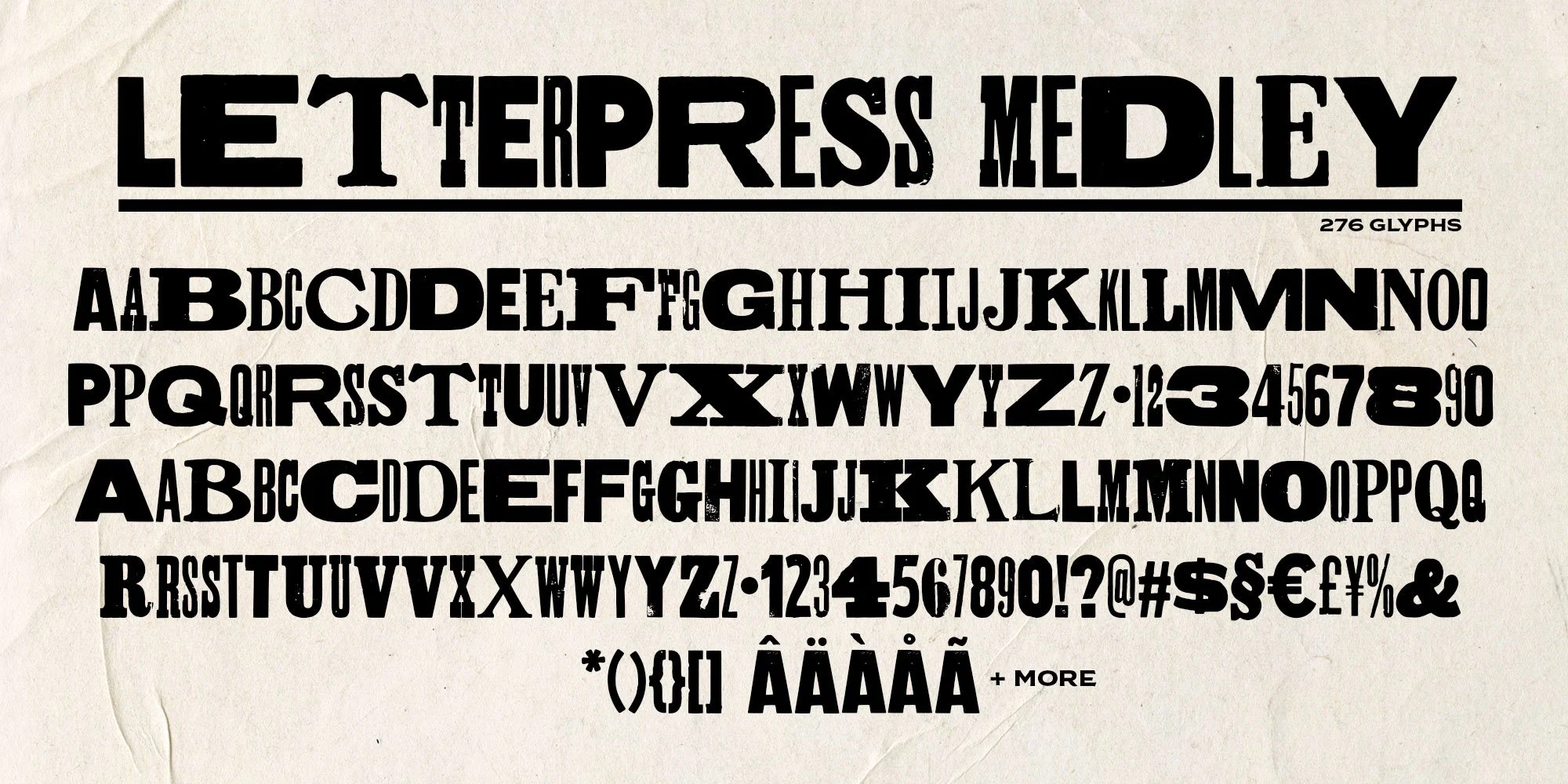
Letterpress Collection
Our Letterpress Font Collection features six fonts that bring the character and authenticity of traditional letterpress into your digital projects. Each font has an organic quality, capturing the subtle imperfections that make letterpress so distinctive. They’re ideal for posters, prints, and any work where you want that tactile, hand-printed feel.
Included in the collection is "Letterpress Lucha," known for its bold presence in Lucha Libre posters, and "Letterpress Medley," a font that blends various letterpress characters, giving it that charmingly mixed look.